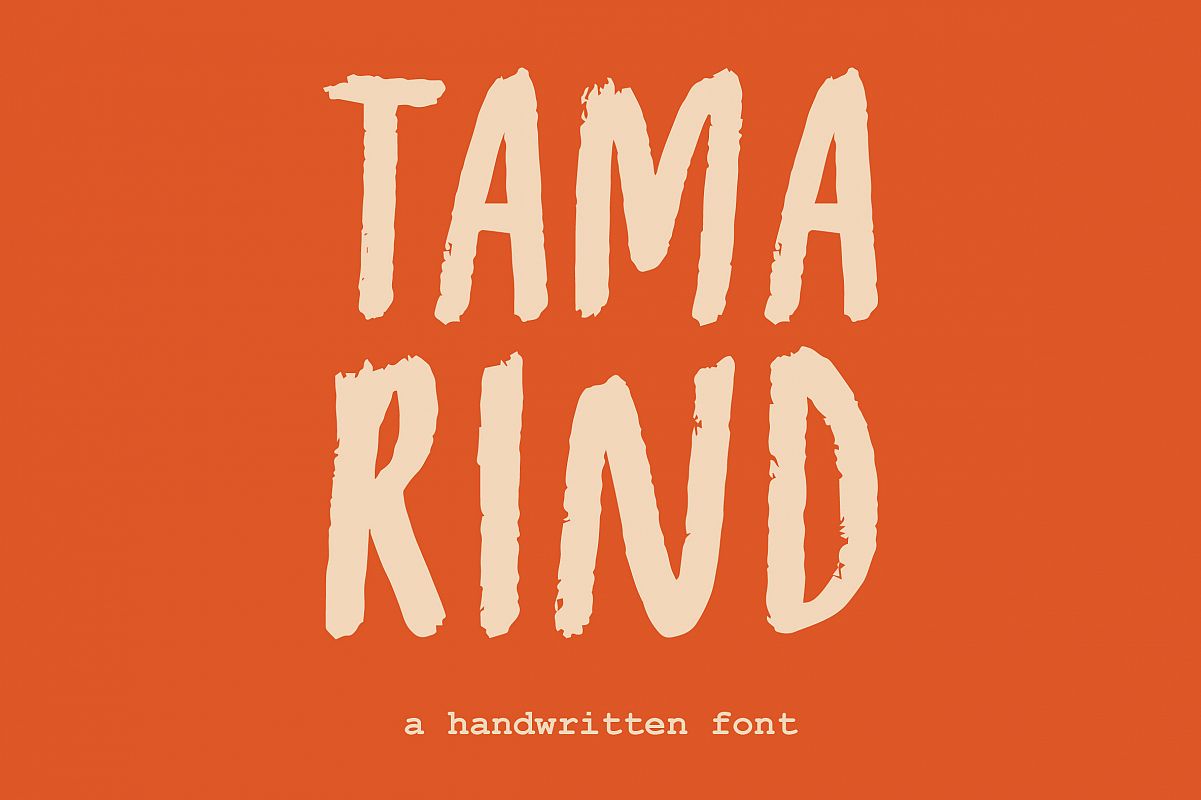
Tamarind
Tamarind-Regular
Tamarind is a rough handwritten font designed by Prangtip F. Tamarind is perfect for branding projects, invitation design, packaging, kids related projects and it works perfectly with other fonts.
Tamarind is including multilingual support for Basic Latin, Western European, Central European, South Eastern European, Vietnamese, Pinyin. Also adding fraction feature and standard ligature.